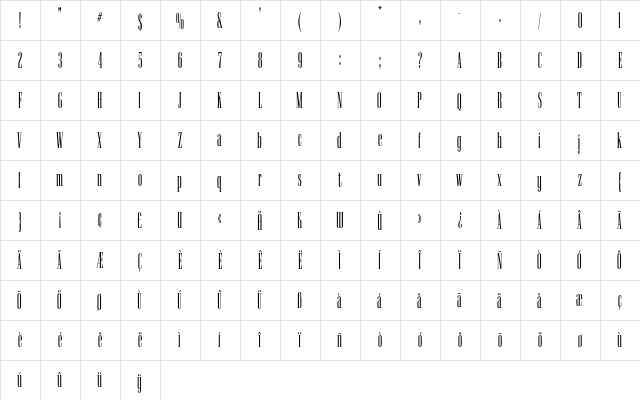
Goldwater Plain
Design Context for Goldwater Typeface
Goldwater is a composed and adaptable typeface that performs quietly and consistently across a wide range of design contexts.